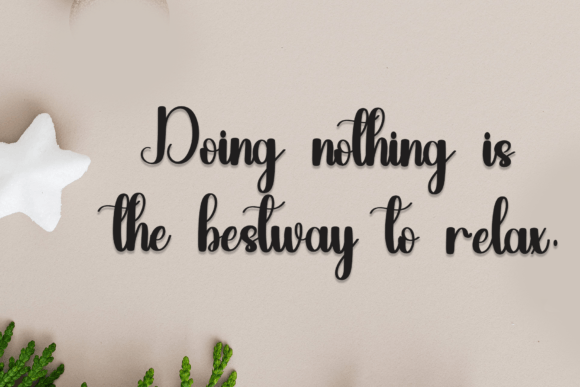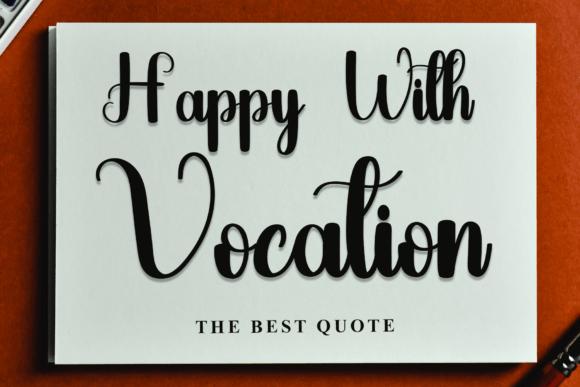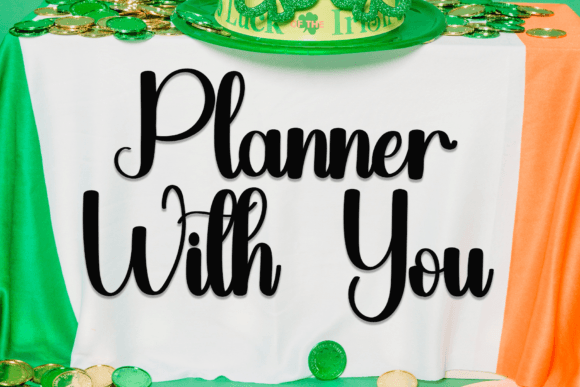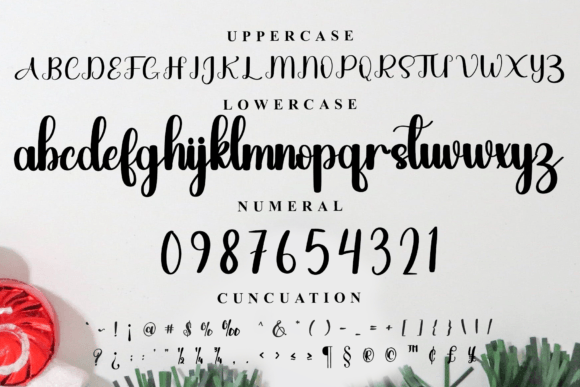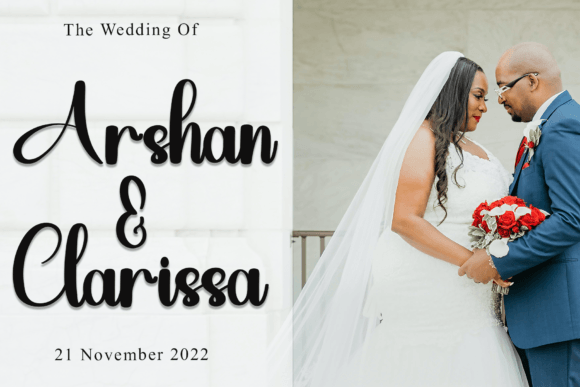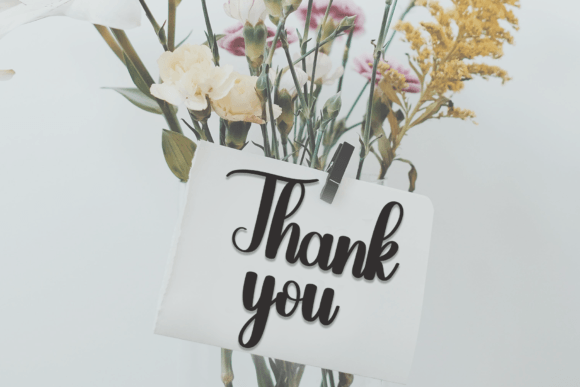
Introduction to Santa Story Font
Do you remember the joy of unwrapping gifts on Christmas morning as a child, the smell of cookies baking in the oven, and the sound of festive carols filling the air? For many of us, the holiday season is a time of warmth, love, and nostalgia. As designers, we can evoke those same feelings in our creations, and that’s where the Santa Story Font comes in.
This festive and happy typeface is the perfect addition to any design project, bringing a touch of charm and whimsy to your words. With its decorative elements and unique flair, the Santa Story Font adds a high-quality, transparent background to your designs, making it a valuable resource for any creative project.
Key Features of Santa Story Font
- High-quality design resource suitable for various creative projects, including holiday-themed graphics and designs.
- Unique, festive font style with a transparent background, allowing for easy integration with other design elements.
- Includes a range of characters, including uppercase and lowercase letters, numbers, and special symbols.
Honest Review: Santa Story Font
As a designer, I’m always on the lookout for high quality design resources that can elevate my creative projects. Recently, I stumbled upon the Santa Story Font, and I’m excited to share my honest review with you.
What works well: ✨ The Santa Story Font is a beautiful, elegant font that’s perfect for holiday-themed projects. The transparent background makes it easy to use on both light and dark backgrounds. The font’s classic feel is reminiscent of traditional holiday cards, making it a great choice for Christmas or winter-themed projects.
- High quality: The font is well-designed and looks great on both digital and print materials.
- Creative freedom: The transparent background gives designers the freedom to use the font on a variety of backgrounds.
Limitations: ⚠️ While the Santa Story Font is a great choice for holiday-themed projects, it may not be the best option for everyday use. The font’s classic feel may not be suitable for modern or minimalist designs.
Overall impression: I’m impressed with the Santa Story Font’s quality and versatility. It’s a great addition to any designer’s toolkit, especially during the holiday season. I highly recommend it for designers working on creative projects that require a touch of elegance and classic charm.
The Santa Story Font is perfect for creating festive and creative projects, such as holiday cards, gift tags, and presentations. It’s also ideal for adding a personal touch to your holiday messages and cards.